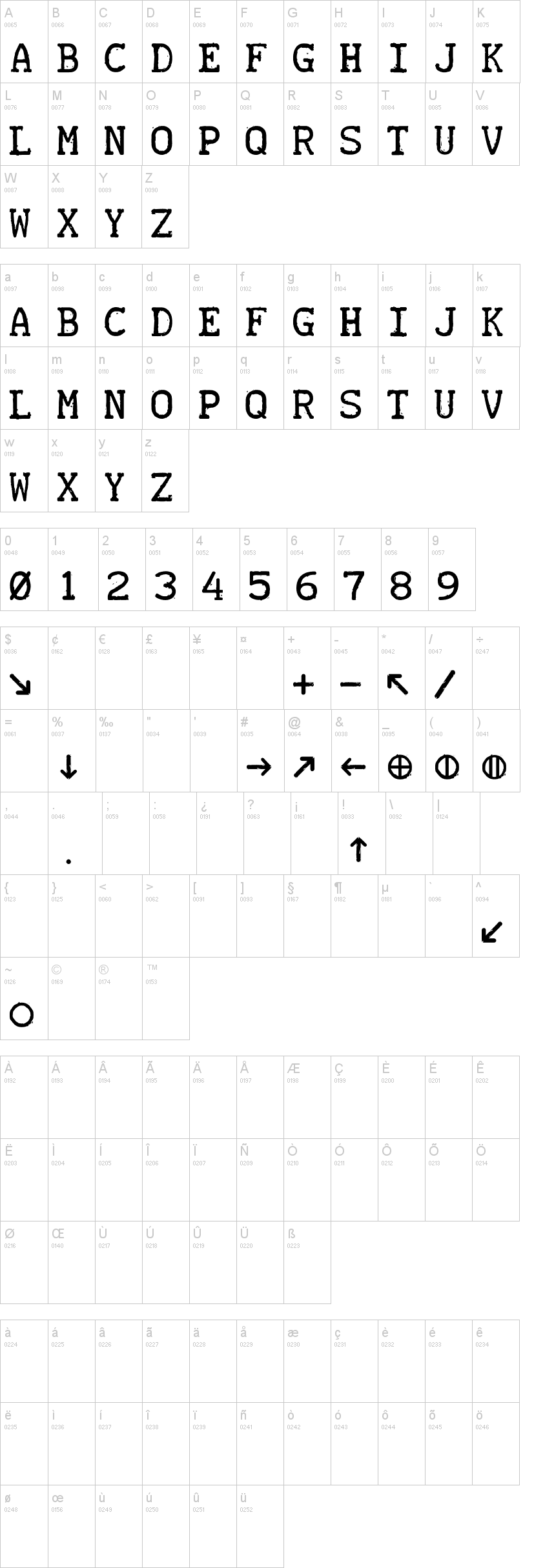
This typewriter-based, serif, mono-spaced font is similar, but not exactly, to the actual Teletype typeboxes. These were used initially by the Civil Aviation Agency (CAA) right after World War II (later reorganized as the Federal Aviation Administration (FAA)) in the various electro-mechanical Teletype (TTY / TWX) machines. These teletypes machines were used by Air Traffic Controllers at over 360+ Flight Service Stations facilities, the U.S. Weather Bureau/Stations, International weather stations, military and many other facilities throughout the world primarily for weather reporting/dissemination purposes and for occasional communication purposes.
The main unique difference from the standard teletype typeboxes and the many numerous variations thereof, is that the CAA/FAA type boxes included specific type of weather symbols. These weather figure symbols were the eight (8) wind direction arrows and the four (4) cloud cover symbols. In addition, several letters were slightly bowed outward at the sides from standard teletype typeface(s). No lower case letters were used; instead the typeboxes were shifted between LTRS (Letters) and FIGS (Figures).The CAA/FAA teletype machines, such as the Model ASR-28, used a subsequent variation of the original 5 level Baudot coded paper tape system, a nylon-cloth ribbon, ran about a 110 baud rate, or about 60 words per minute and the typeboxes only had 64 characters available (including CR, LR, SP, BEL, NUL, etc.).
Around 1985, due to the computer automation upgrades using the new standard ASCII coding, all weather symbols were removed and replaced with text-based descriptors. In addition, the consolidation of 360+ Flight Service Stations to the new 64 Automated Flight Service Stations (AFSS) in the mid to late 1980s, made the slow teletype system(s) obsolete and was removed. About 2005, all the FAA Flight Service Station facilities/personnel were sold (?) by the U.S. Government to the Lockheed-Martin Corporation 2004 and in 2019 to Leidos Corp. They have since consolidated the stations to less than a handful nationwide. With advent of personal computers, cellular telephone texting and other methods, the aviation professional now obtains information directly from various sources in a timely manner, whereby making the Flight Service Station redundant for pre-flight purposes.
This font, TELETYPE 1945-1985, was made to appear as actual characters exactly as it was printed on teletype machines. It accurately recreates a typeface as though it was printed through a nylon cloth inked ribbon and slightly askew.